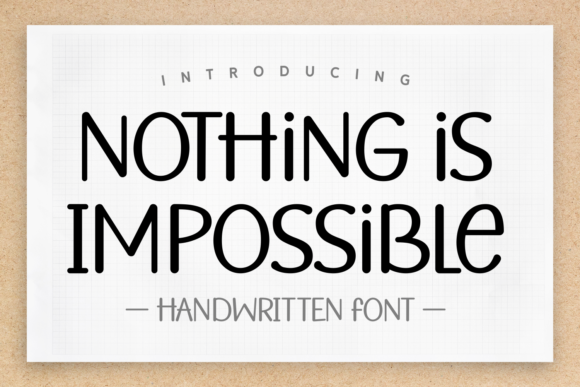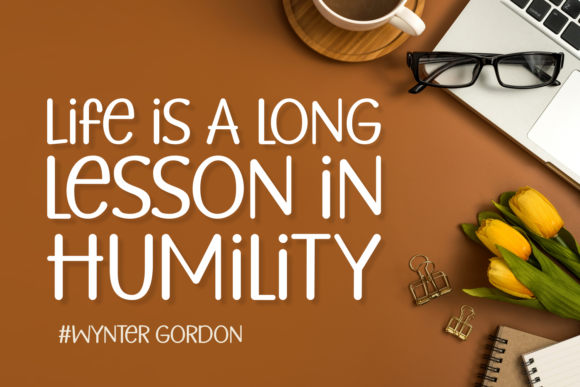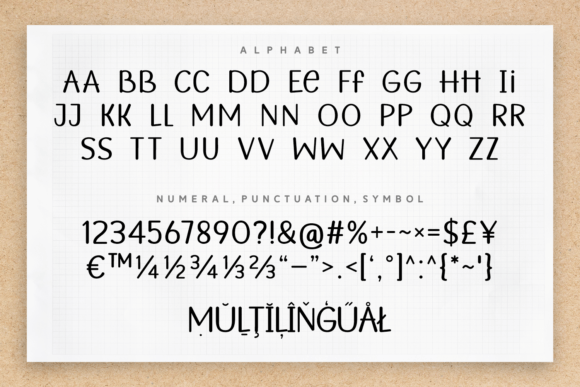
Nothing is Impossible Font
Nothing is Impossible is an enchanting handwritten font. This versatile script font has a wide spectrum of applications ranging from greeting cards to headlines and is guaranteed to add a romantic feel to your next project.